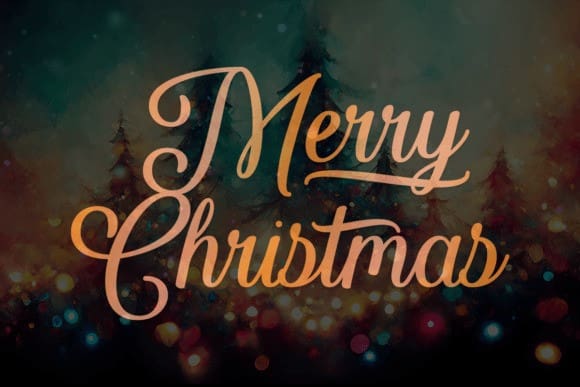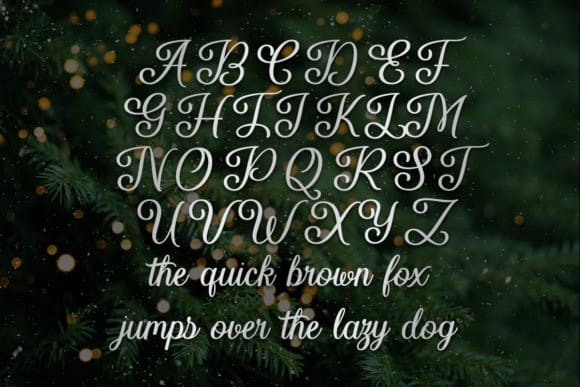
Lovely Greeting Font
Lovely Greeting Font, an elegant calligraphy typeface crafted for the holiday season. Its graceful strokes and festive charm make it perfect for holiday cards, invitations, and warm winter messages. Bring a touch of elegance to your seasonal designs!